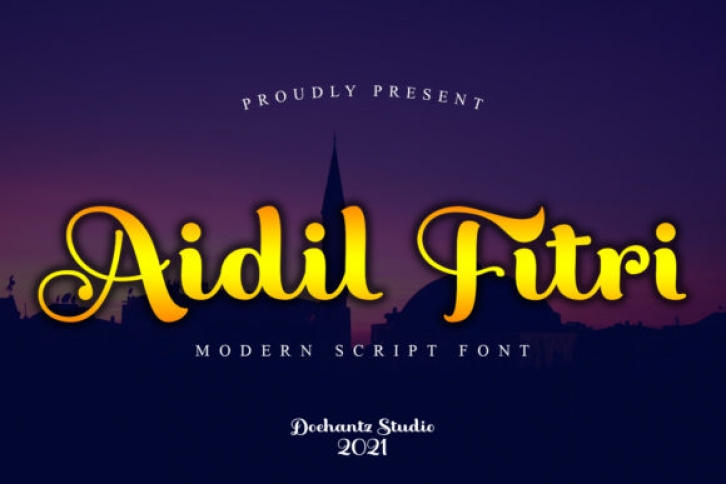
Aidil Fitri is a modern and distinct script font, influenced by the arabic style. It will add a luxury spark to any design project that you wish to create! This font is PUA encoded which means you can access all of the amazing glyphs and ligatures with ease!